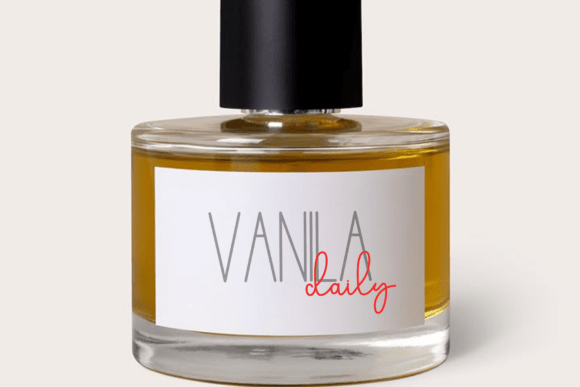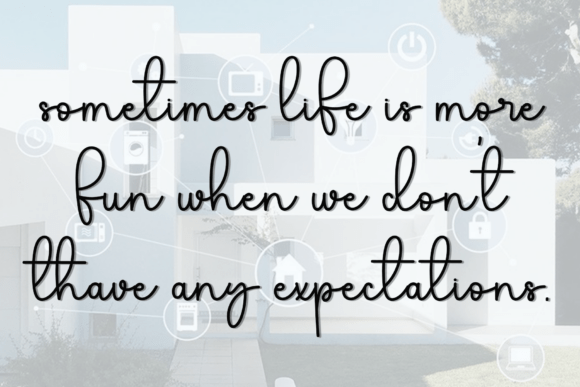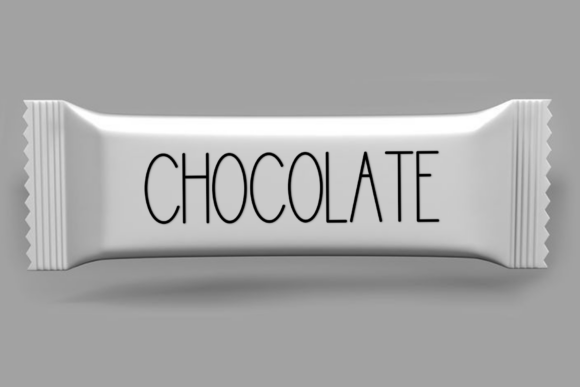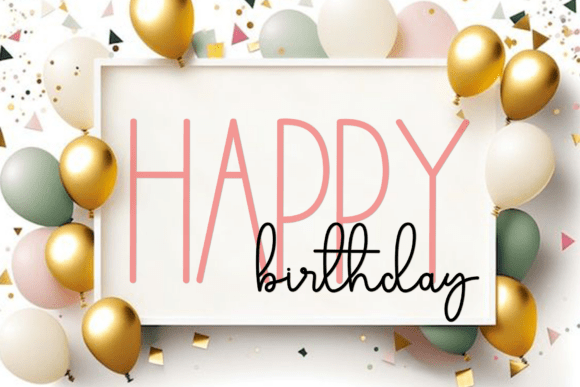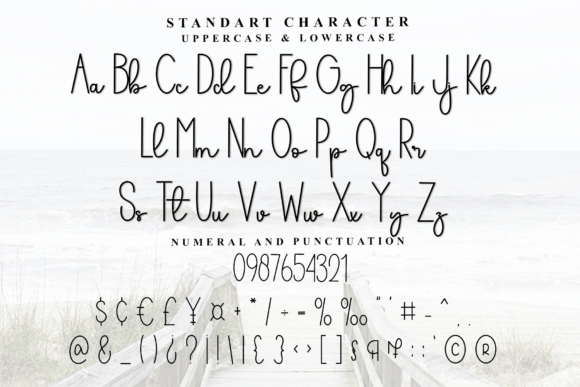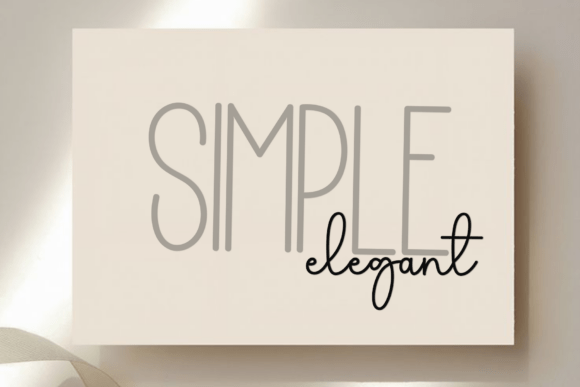
Introduction to Chocolate Child Font
CHOCOLATE child is a festive and merry typeface that captures the spirit of the holiday season.
Key Features of Chocolate Child Font